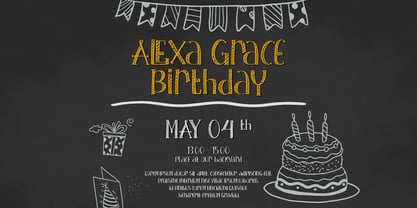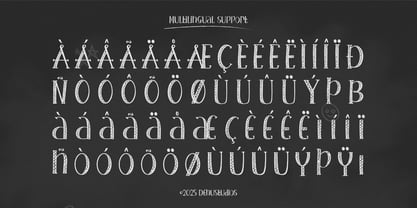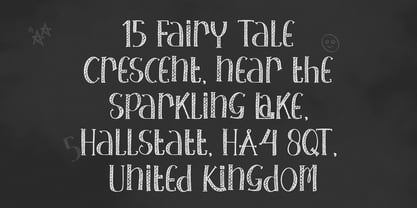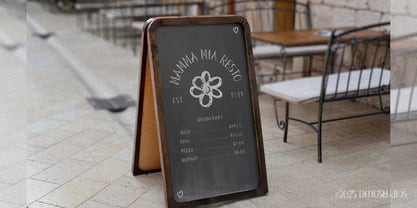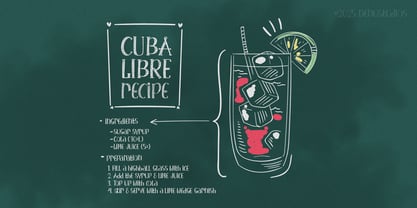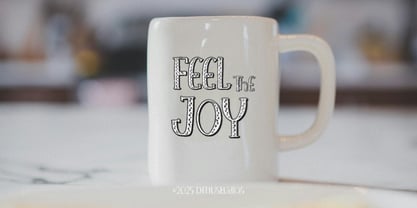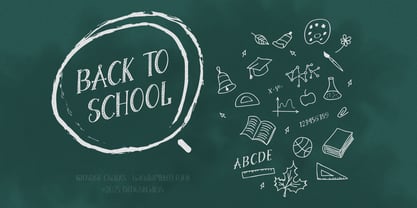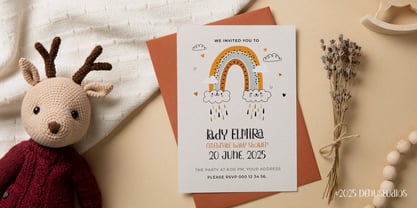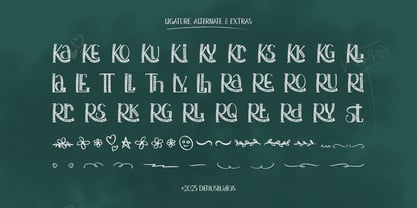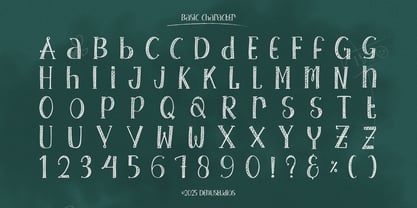
Kanvase Chalks
por Denustudio
La familia tipográfica Kanvase Chalks fue diseñada por Dede Nugraha y publicada por Denustudio. Kanvase Chalks contiene 2 estilos y opciones de paquete familiar. Más información sobre esta familia
Kanvase Chalks | Handwritten Typeface, from Denustudios, suitable for any projects such as: logos, branding projects, homeware designs, product packaging, mugs, quotes, posters, shopping bags, t-shirts, book covers, name card, invitation cards, greeting cards, label, photography, watermark, special events, and all your other lovely projects that need Handwritten Typeface a taste.
Diseñadores: Dede Nugraha
Fundición: Denustudio